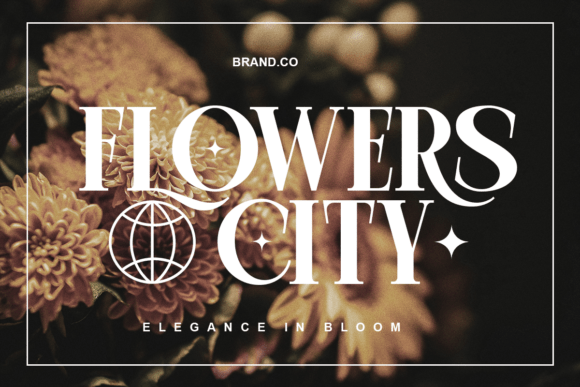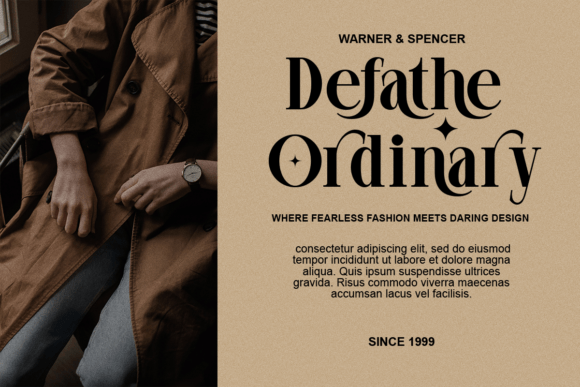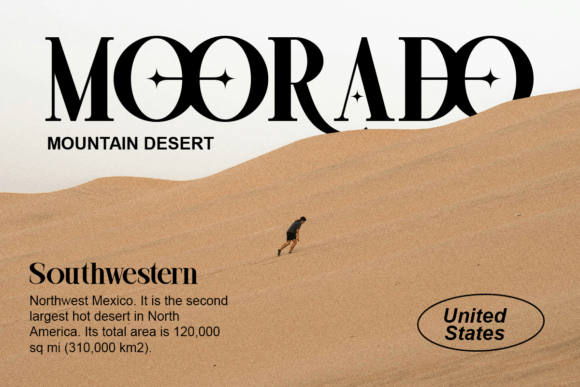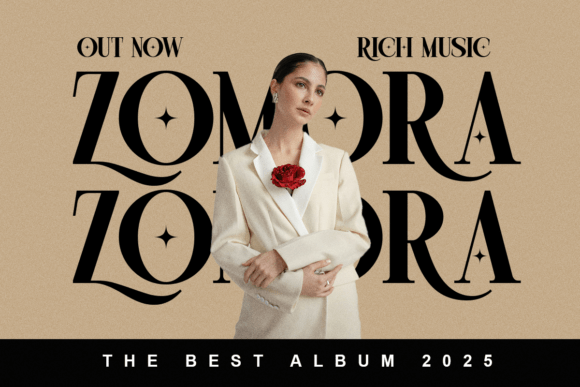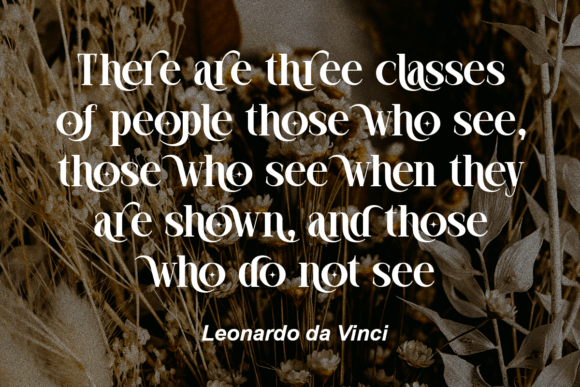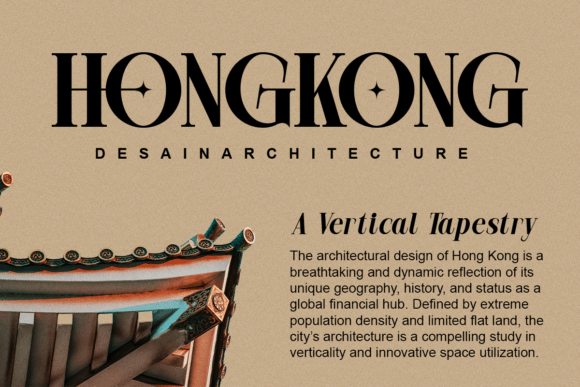
Introduction to Rugola Font Font
Fonts play a crucial role in design, and the Rugola Font font is a typeface that brings both character and versatility to any project. Whether you’re working on a branding project, a website, or a print design, the Rugola Font font offers a unique style that can elevate your work.
Rugola is a modern luxury display serif font that combines elegance with bold sophistication.
Featuring sharp serifs, high contrast strokes, and refined curves, itβs perfect for high-end branding, fashion editorials, logos, packaging, and invitations that demand a touch of class .
Key Features of Rugola Font Font
Why Choose Rugola Font Font?
The Rugola Font font is more than just a typeface β it’s a design tool that helps you communicate your message with style and clarity. Its unique character set and versatile design make it suitable for a wide range of applications, from elegant invitations to bold headlines.
With its carefully crafted letterforms and balanced proportions, the Rugola Font font ensures readability and visual appeal across all mediums.
What makes Rugola Font font special?
The Rugola Font font stands out with its unique design, exceptional readability, and versatility across various design applications.